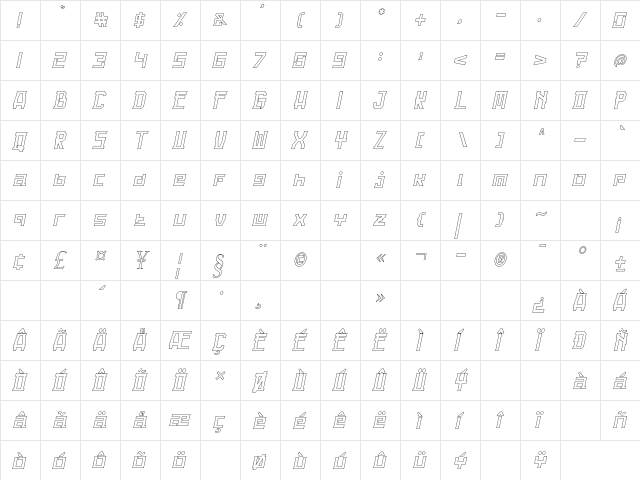
Guardian Warrior Light Italic Italic Font Preview
Design Context for Guardian Warrior Light Italic Typeface
Guardian Warrior Light Italic offers clean, dependable letterforms without strong stylistic allegiance, making it a practical choice for designers who need flexibility. The slanted form adds forward momentum and visual energy. Its slender proportions lend an understated elegance to any composition.